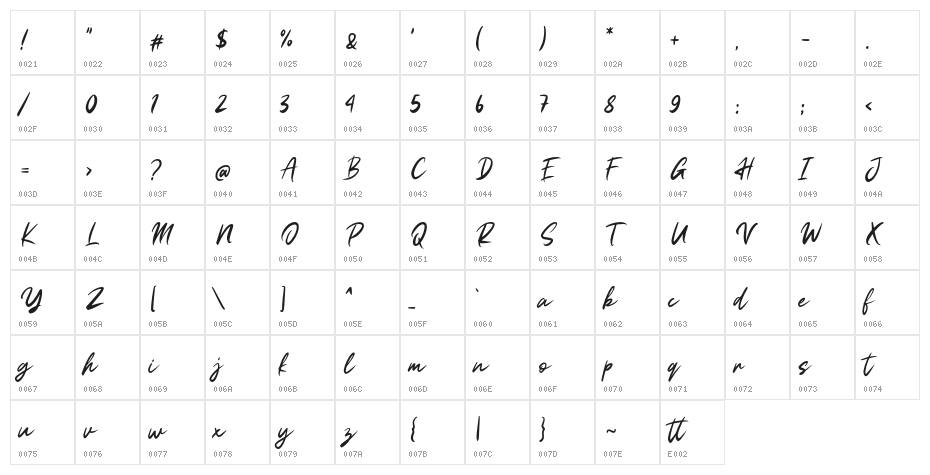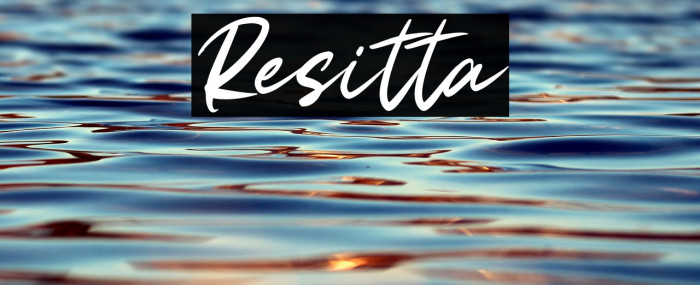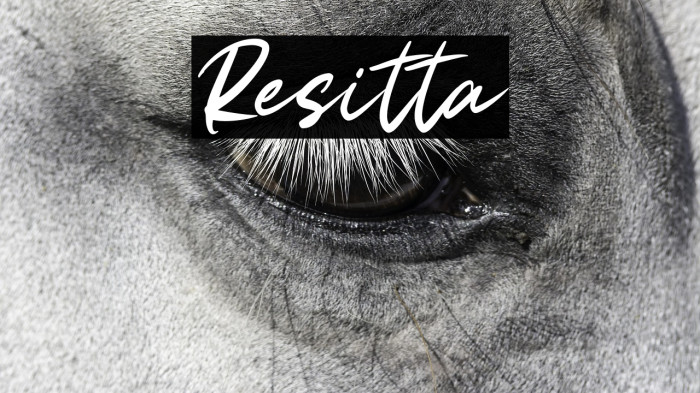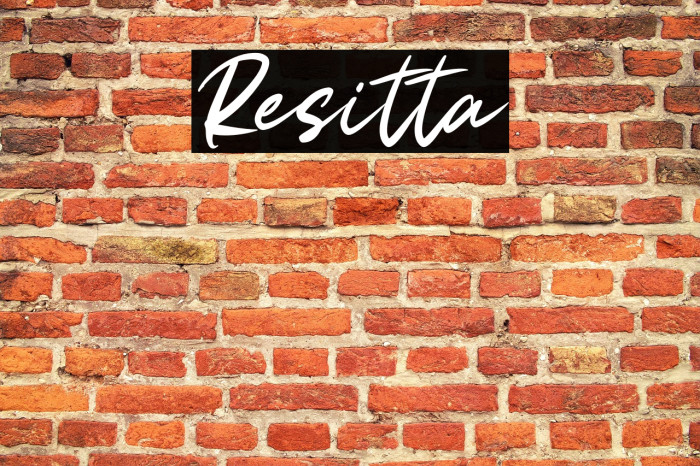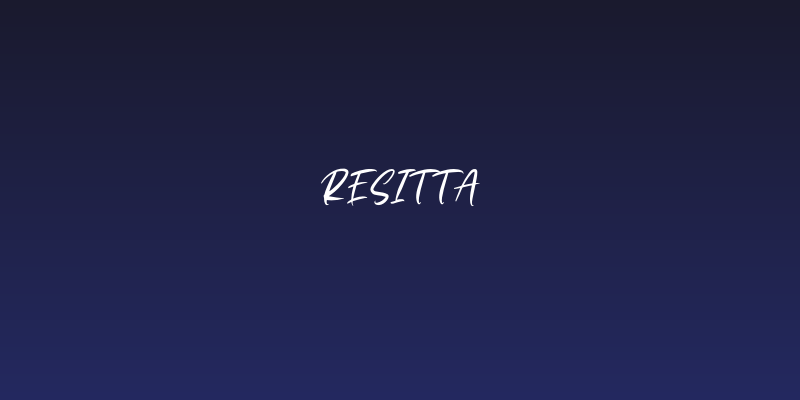
Resitta Font
Resitta Description
This font features a dynamic and flowing script style, characterized by its elegant and fluid strokes. The letters are connected in a cursive manner, giving it a handwritten appearance. The uppercase letters are bold and slightly slanted, while the lowercase letters maintain a consistent flow with a slight inclination. The numerals are clear and legible, matching the overall script style. Special characters are well-integrated, maintaining the font's cohesive look. This typeface exudes a sense of sophistication and creativity, making it ideal for projects that require a personal touch.
| Use Case | Logos, Invitations, Branding |
| Proposed Projects | Ideal for wedding invitations, greeting cards, branding, and logo design. |